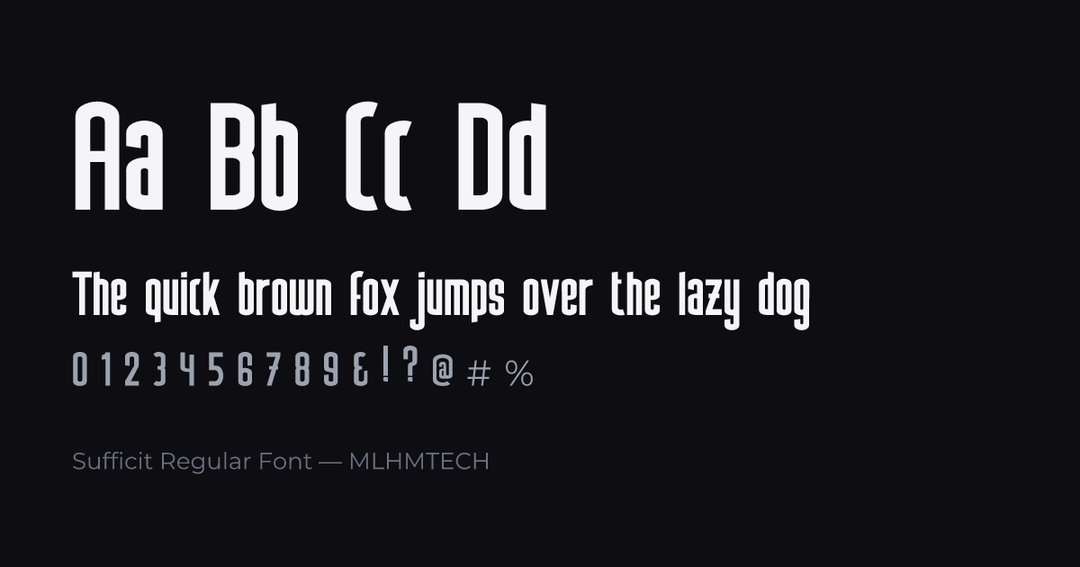
Sufficit Regular Font
Sufficit Regular is a clean, modern font ideal for titles, logos, and creative projects. Handpicked for quality and versatility.
Sufficit Regular is a well-crafted font that brings a touch of elegance to any design. Its balanced letterforms and clear readability make it suitable for a wide range of applications, from video titles to branding materials.
Whether you're working on a video intro, a poster, or a website, Sufficit Regular offers the flexibility and style to elevate your creative work.